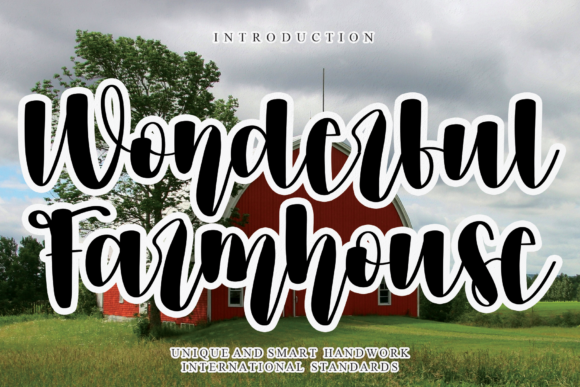
Unleash the magic of "Wonderful Farmhouse," a captivating script font that will ignite your designs with its playful and enchanting spirit. This masterpiece, crafted by the skilled hands of Creativewhitee, is not just a font; it's an artistic journey, a symphony of strokes that dance across the digital canvas, beckoning you to embark on a creative adventure.
With its meticulously crafted characters, "Wonderful Farmhouse" exudes a charm that is both timeless and contemporary. Its playful curves and whimsical strokes create a visual symphony, evoking a sense of nostalgia and wonder. Whether you're a seasoned designer or just starting, this font will effortlessly elevate your projects, adding a touch of whimsy and imagination to every design.
Immerse yourself in a world where creativity knows no bounds. Let "Wonderful Farmhouse" lead you through a myriad of possibilities, from eye-catching logos and branding designs to vibrant social media posts and captivating marketing materials. Its versatility shines through whether you're designing for streetwear, crafting invitations, or adding a personal touch to your digital creations.
"Wonderful Farmhouse" is more than just a font; it's an invitation to unleash your inner artist, to embrace the joy of creation. Its charming, playful characters will breathe life into your designs, captivating your audience with their infectious personality.
So, embark on this creative journey with "Wonderful Farmhouse" and allow your imagination to flourish. Let its magical strokes ignite your passion and transform your designs into captivating works of art.